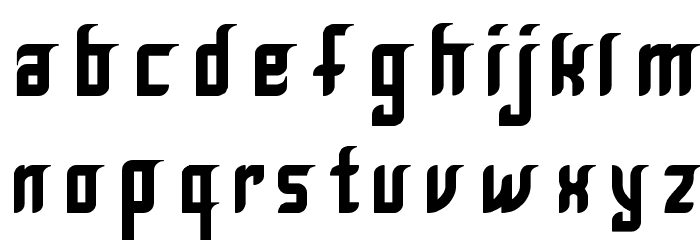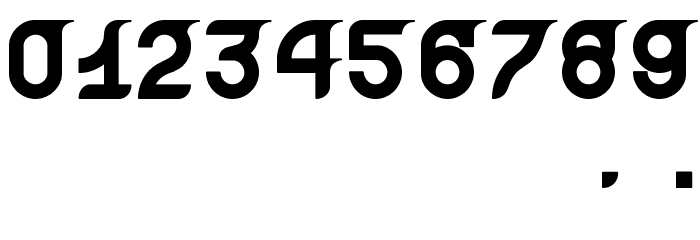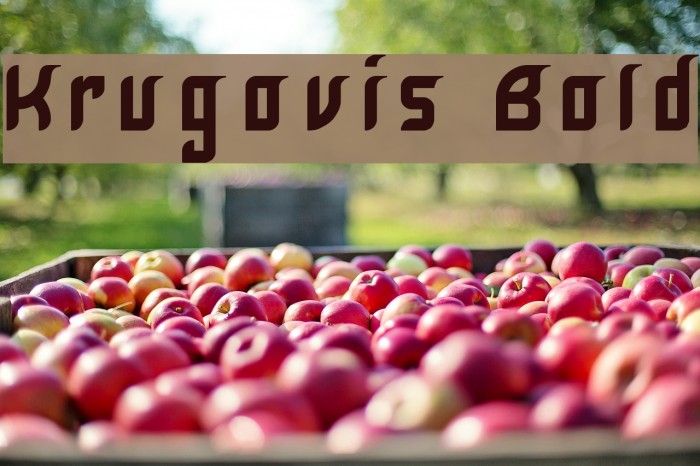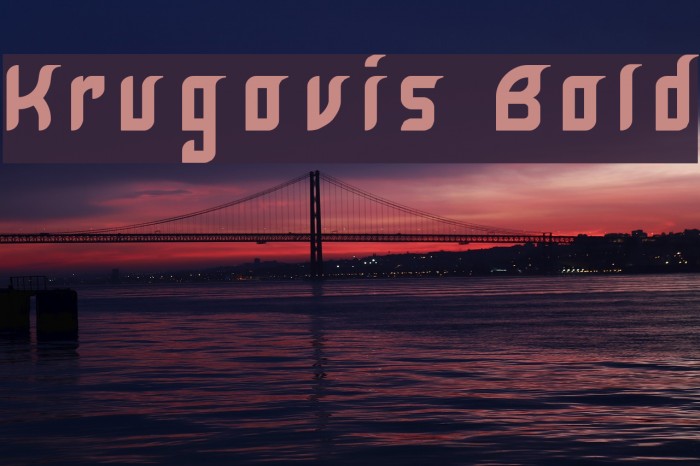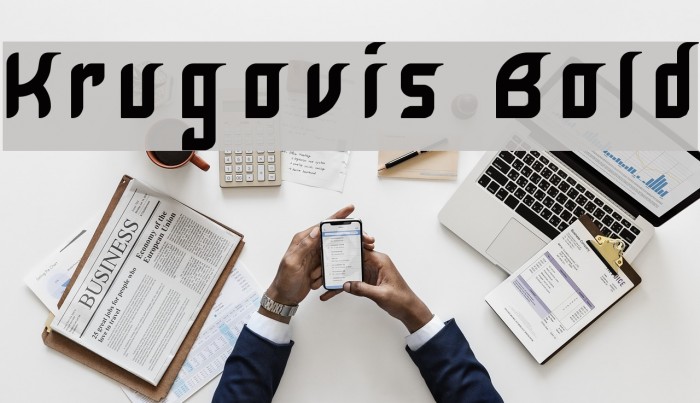
Krugovis Bold Font
This font features a bold and modern design with a distinctive geometric style. The characters are crafted with sharp angles and clean lines, giving it a futuristic and dynamic appearance. The uppercase letters have a strong presence, while the lowercase letters maintain a consistent flow. The numerals are equally bold and complement the overall design. This font is well-suited for projects that require a contemporary and impactful look, such as branding, advertising, and digital media.
A bold, geometric font with a modern and dynamic style.